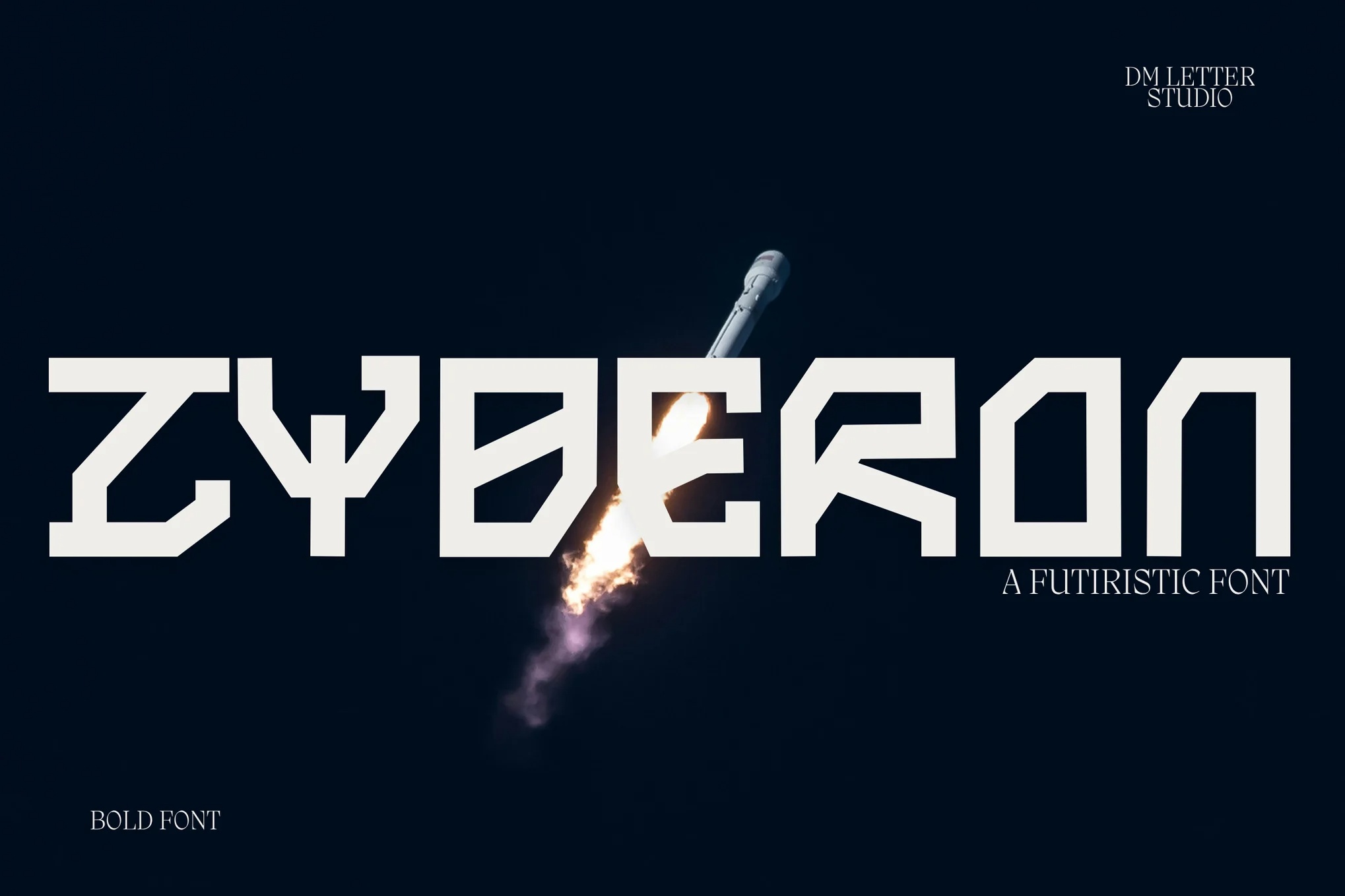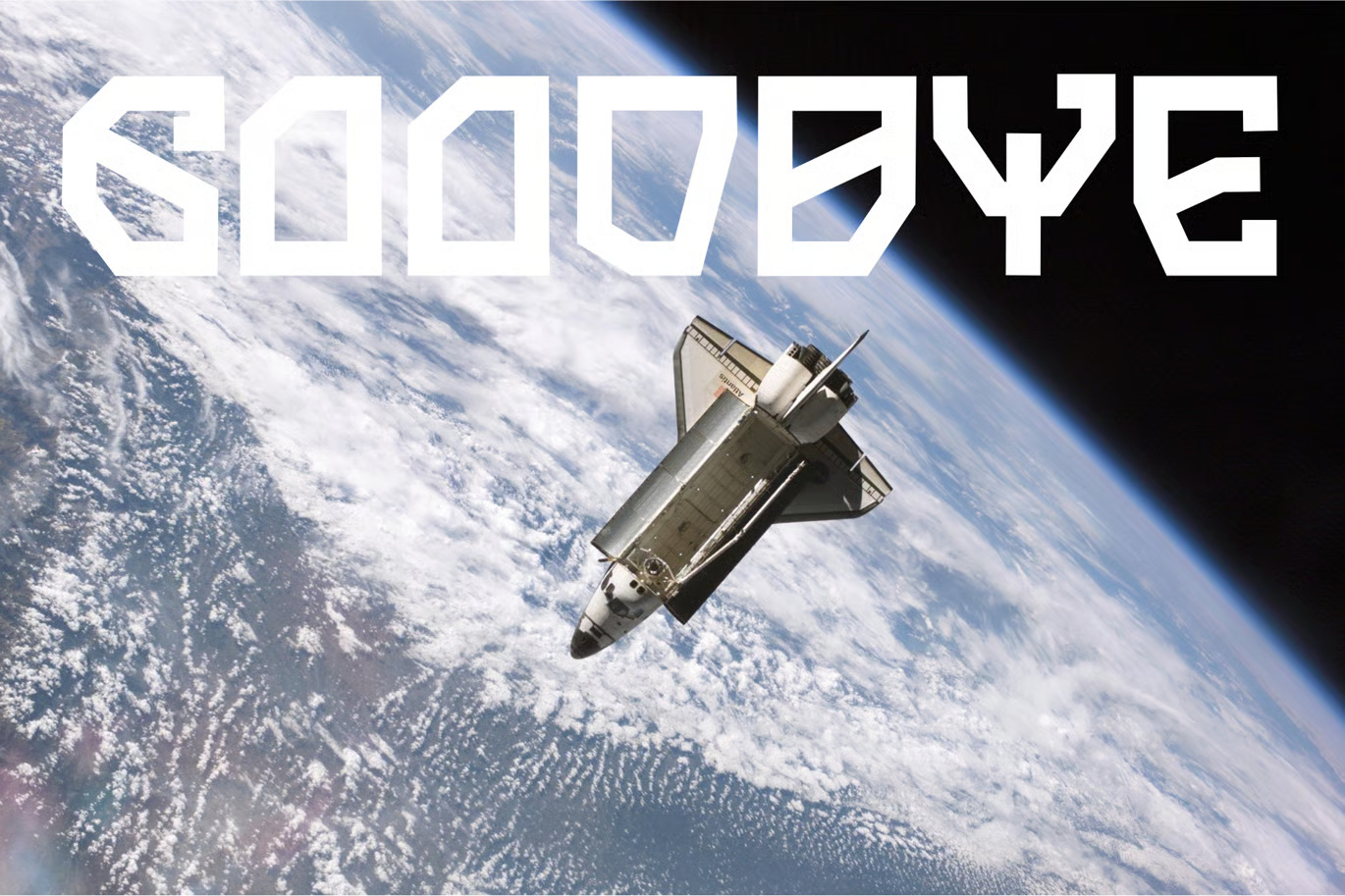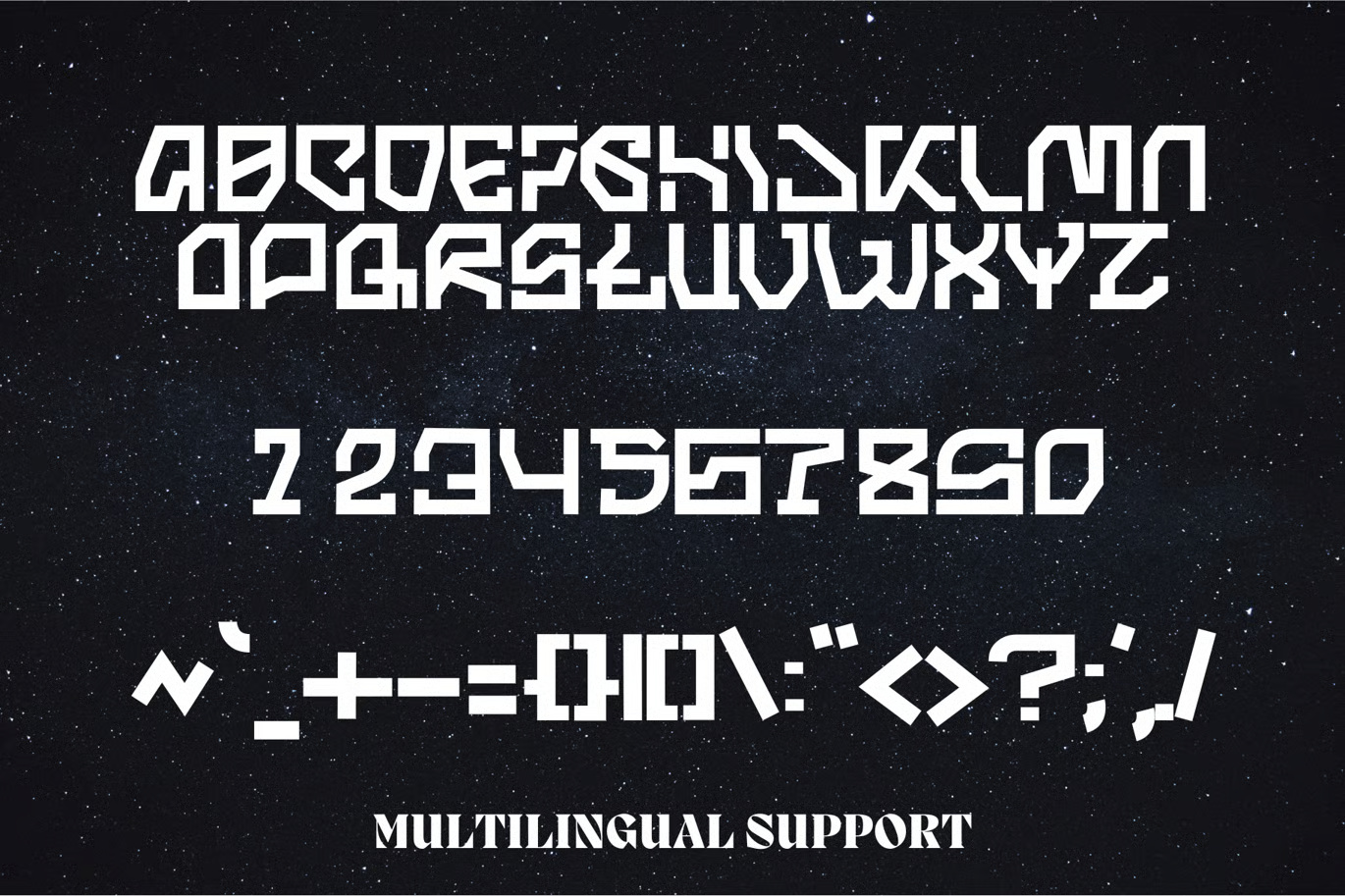
Zyberon looks like it was cut out of metal plates. DM Letter Studio built every letter from straight blocks with sharp notches and angled corners, which gives it a cyberpunk, space station feel. The Goodbye sample above a space shuttle is a fair summary.
Best uses for Zyberon
- Game and esports logos
- Sci-fi posters and film titles
- Tech and crypto branding
- Streaming overlays
- Album covers for electronic music
Pair Zyberon with a clean tech sans. Rajdhani matches its sharp feel. Exo 2 works for subheads. For body text, Inter keeps things readable.